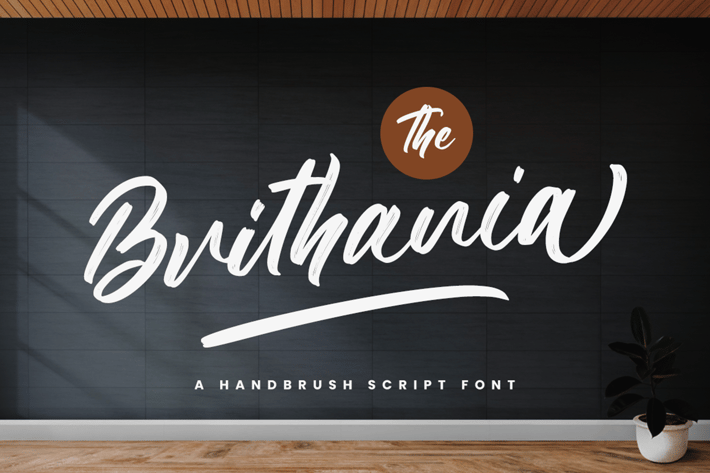
The Brithania - Brush Font
The Brithania is a new modern brush font, incredibly adaptable to all sorts of designs. It is suitable for any branding, product packaging, invitation, quote, t-shirt, label, poster, logo that you wish to create.